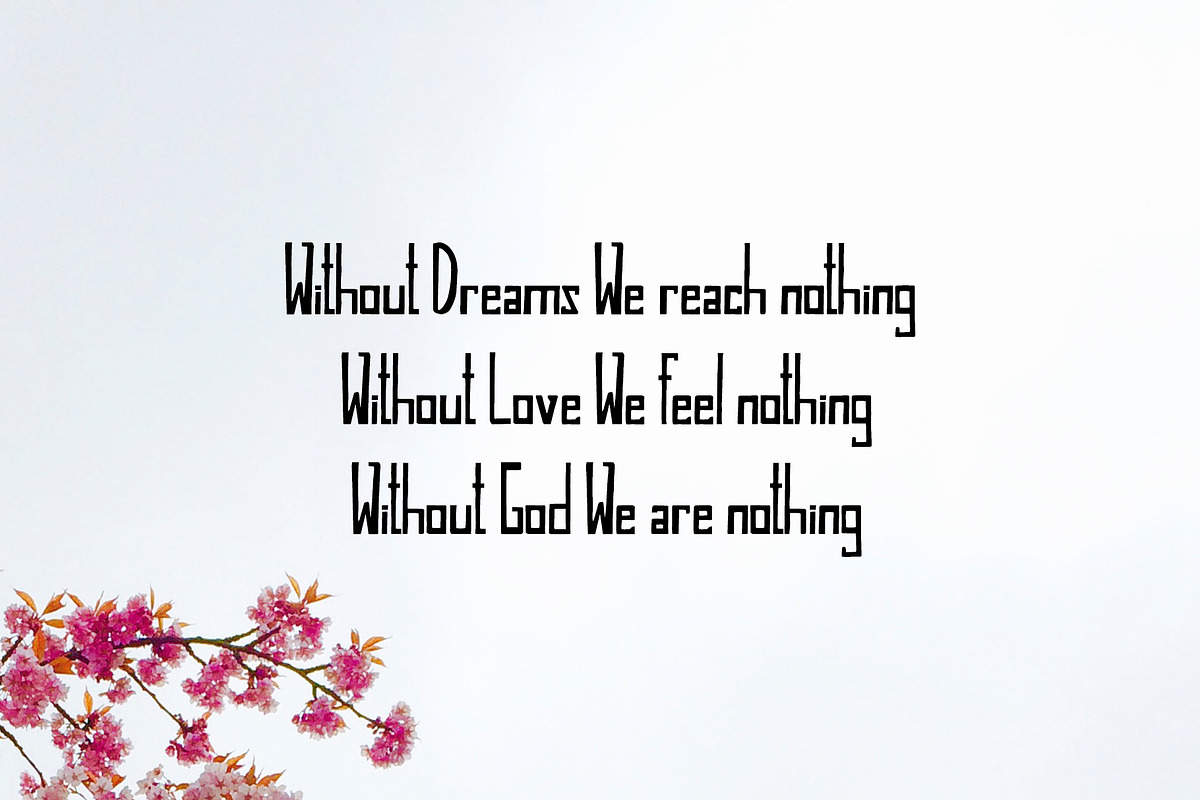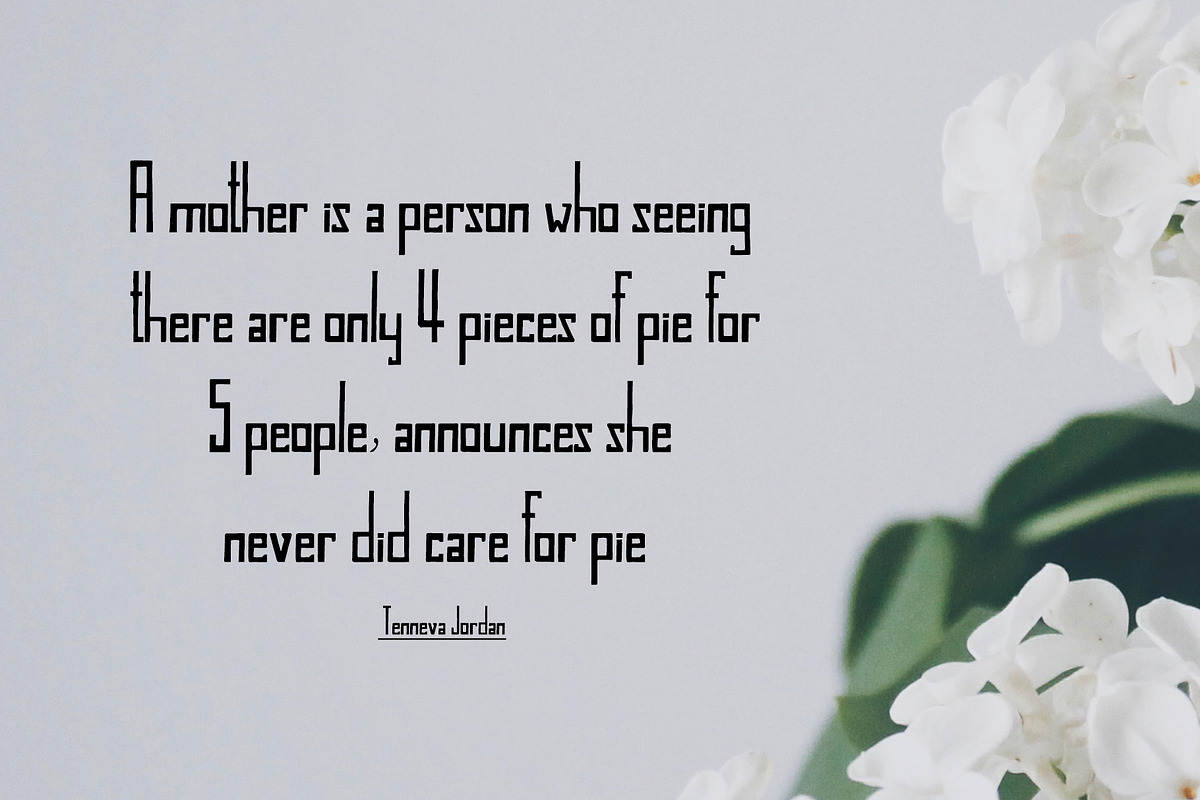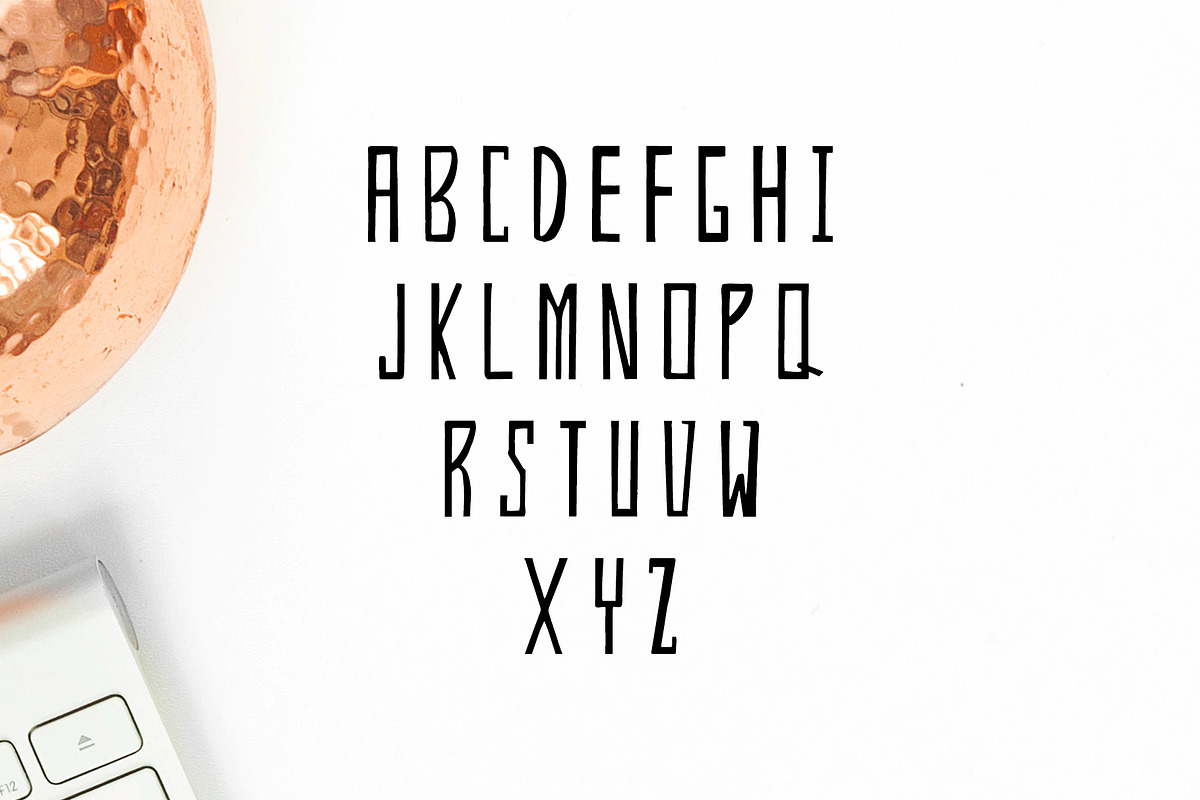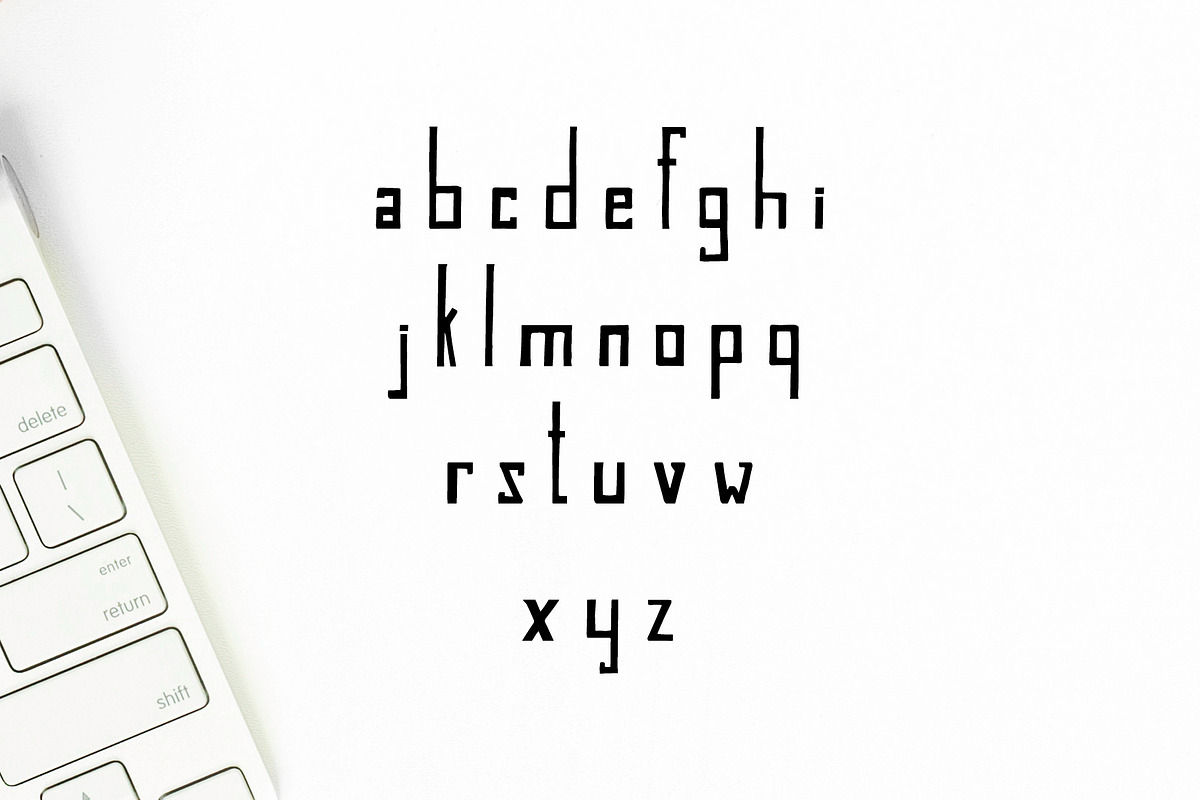
Jassmine Hand Written 4 Font Family
Jassmine Hand Written 4 Font Family by Creativetacos is a font selected for branding, posters, packaging, typography.
- Jassmine is a beautiful handwritten typeface which contains 4 weights and that is specifically designed for minimal projects.
Why Jassmine Hand Written 4 Font Family is worth a look
Jassmine Hand Written 4 Font Family by Creativetacos fits naturally into Branding, posters, packaging, typography.